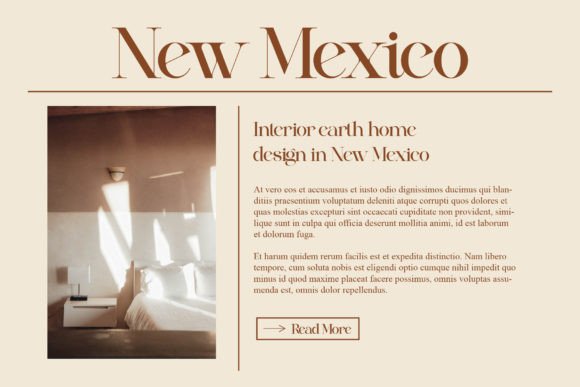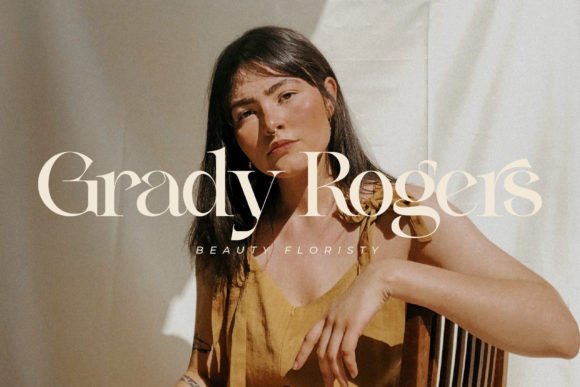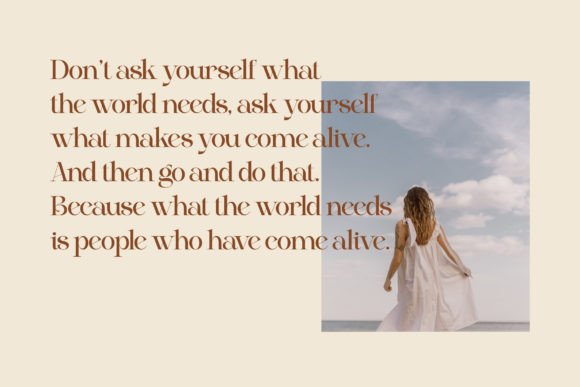
Introduction to Satista Font
Have you ever stared at a blank page, searching for the perfect font to bring your creative project to life? It’s that moment of frustration when you finally find the perfect match, and your design starts to take shape. For designers, finding the right font can make all the difference between a mediocre and a spectacular design.
Enter the Satista Font, a modern and stylish serif font that’s sure to become your new go-to design resource. With its distinct and well-balanced letters, this font is a masterpiece that’s perfect for a wide range of creative projects. Whether you’re working on a high-quality brochure or a stunning website, the Satista Font is an excellent choice that’s sure to impress.
One of the best things about the Satista Font is its versatility. You can use it on a transparent background or as a bold statement on a dark background – the possibilities are endless. And the best part? You can download it for free, making it an invaluable resource for designers of all levels.
Key Features of Satista Font
- High-quality design resource ideal for creative projects, with a unique, modern aesthetic.
- Features a transparent background, allowing for seamless integration into various design contexts.
- Optimized for high-resolution displays, with a resolution of 300 DPI or higher.
- Includes a comprehensive character set, covering a wide range of languages and scripts.
- Perfect for use in logos, typography-based designs, and other creative projects that require a sophisticated, modern look.
Honest Review: Satista Font
I recently had the chance to work with the Satista Font, and I must say it’s been a game-changer for my design projects. This high-quality font is perfect for any creative project that requires a modern and elegant touch.
- ✨ Highly customizable: The Satista Font offers a range of styles and weights, making it easy to find the perfect fit for your design.
- ✨ Transparent background: This font works beautifully with transparent backgrounds, allowing you to create stunning visuals for your designs.
Overall, I’m thoroughly impressed with the Satista Font. Its high-quality design and versatility make it an excellent addition to any designer’s toolkit. Whether you’re working on a personal project or a client brief, this font is sure to deliver.
Tips for Getting the Most Out of Satista Font
For optimal results, use the Satista Font in conjunction with a transparent background to create a clean and modern design. Experiment with different font sizes and styles to find the perfect combination for your project. You can also pair the Satista Font with other design resources to create a unique and eye-catching design.
The Satista Font is ideal for a variety of design projects, including presentations, social media graphics, and reports. It’s also perfect for creating custom designs, editing photos, or illustrating graphics. With its high-quality design and transparent background, the Satista Font is a valuable design resource that can help you achieve professional-looking results.